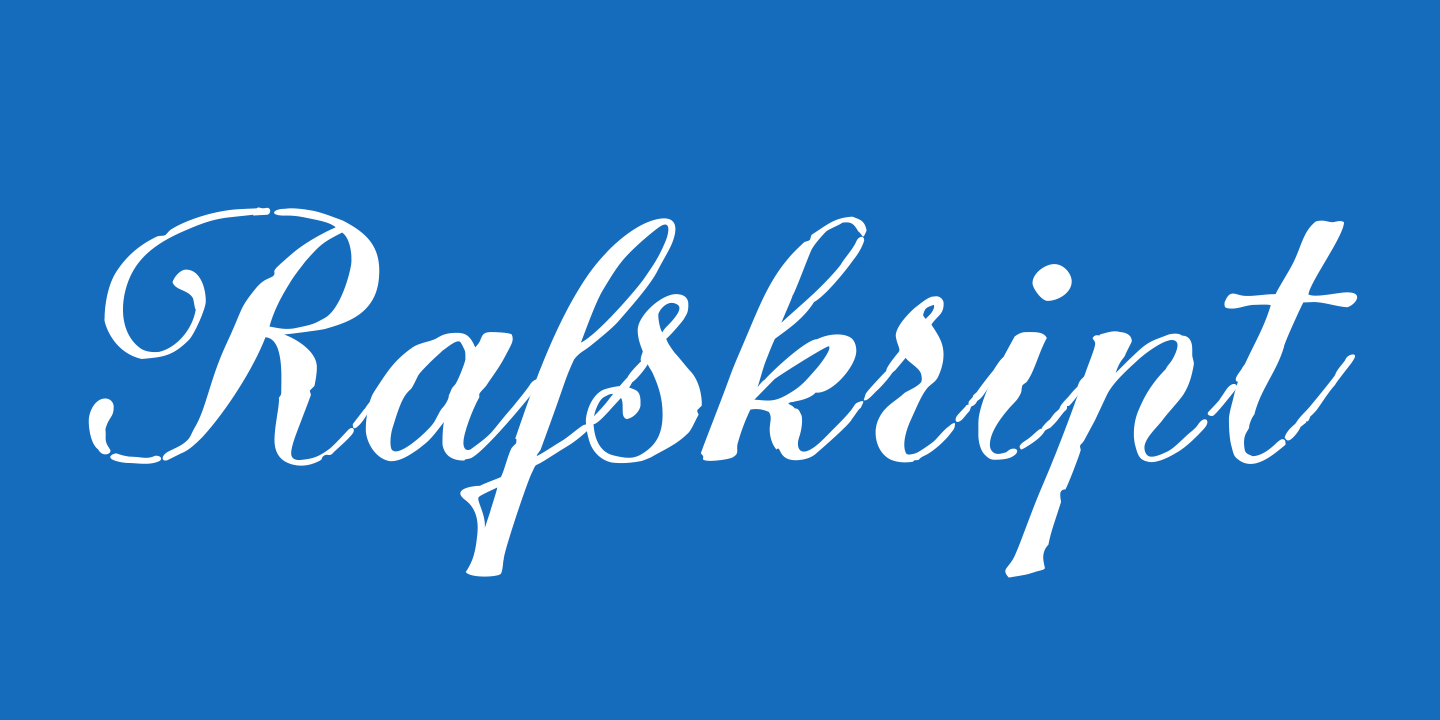
PF Rafskript Font is perfect for elegant handwritten wedding invitations, sophisticated calligraphy service branding, refined luxury stationery design, graceful personal branding materials, intimate boutique signage, delicate jewelry packaging, romantic greeting card collections, personalized gift wrapping designs, distinguished handwriting workshop materials, and authentic script typography projects. Its graceful handwritten character makes it ideal for projects requiring calligraphic elegance and handcrafted authenticity.
What makes PF Rafskript Font exciting is its masterful embodiment of calligraphic artistry and handwritten elegance with flowing letterforms and script characteristics that capture the essence of traditional penmanship and sophisticated handwriting excellence. The font features graceful script proportions, calligraphic-inspired details, and handwritten character construction that create authentic handcrafted atmosphere and elegant appeal. Its refined personality brings artistry and sophistication to contemporary designs while maintaining the readability essential for personal communications and elegant presentations. The carefully crafted script elements ensure calligraphic authenticity while preserving the distinctive character that embodies the essence of handwritten artistry and script excellence.
PF Rafskript Font comes in multiple elegant variations including Light, Regular, Medium, Bold, and Calligraphic styles. Each family member maintains the distinctive script character while offering comprehensive flexibility for handwritten typography and elegant brand system development. The complete font family includes stylistic alternates, calligraphic flourishes, and script decorative elements that provide extensive tools for creating immersive handwritten design experiences and authentic calligraphic brand storytelling.
Whether you're developing elegant brands, calligraphy services, or sophisticated handwritten projects, PF Rafskript Font Free Download provides the calligraphic refinement needed to communicate with elegance seekers and handwriting enthusiasts who appreciate traditional penmanship and script sophistication. The font's graceful appeal resonates with calligraphers, elegant service providers, and handwriting professionals seeking authentic script credibility and calligraphic sophistication. Its comprehensive character set includes script symbols and calligraphic marks, making it perfect for creating complete handwritten brand systems and memorable script storytelling across diverse elegant applications and artistry-focused design projects that celebrate calligraphic tradition and handwritten excellence.